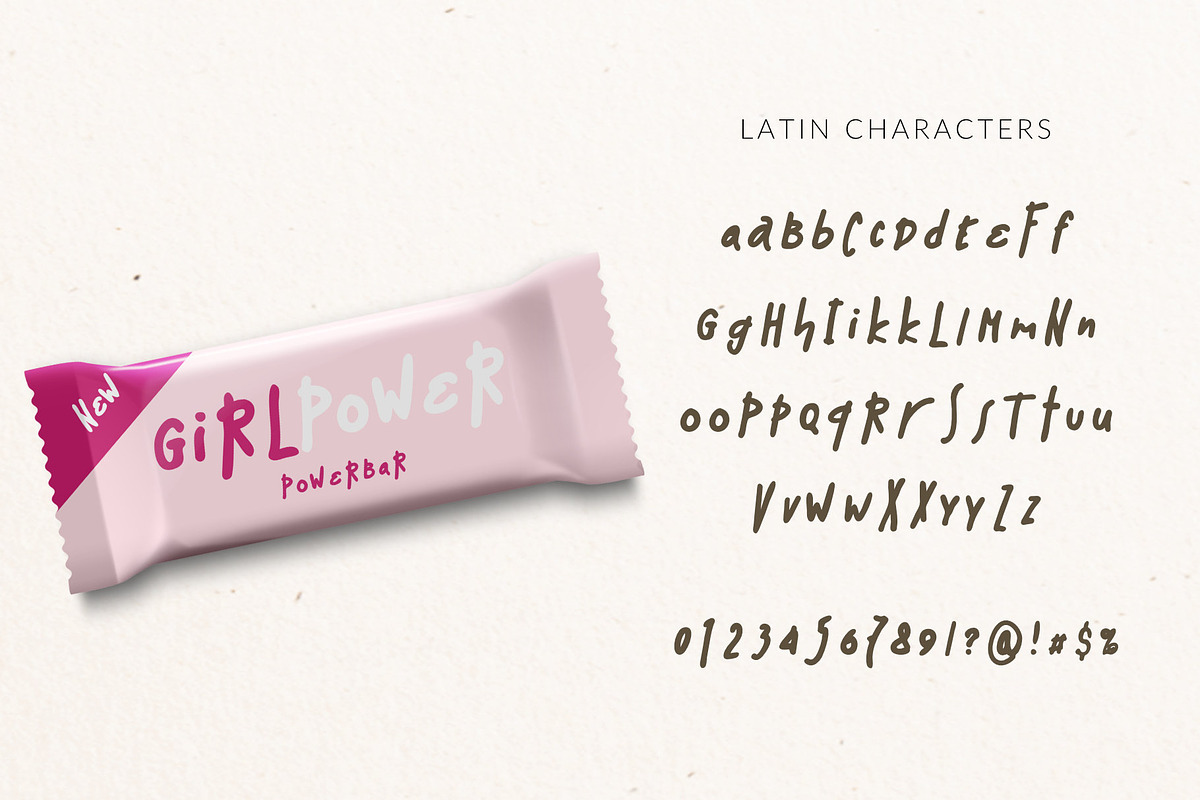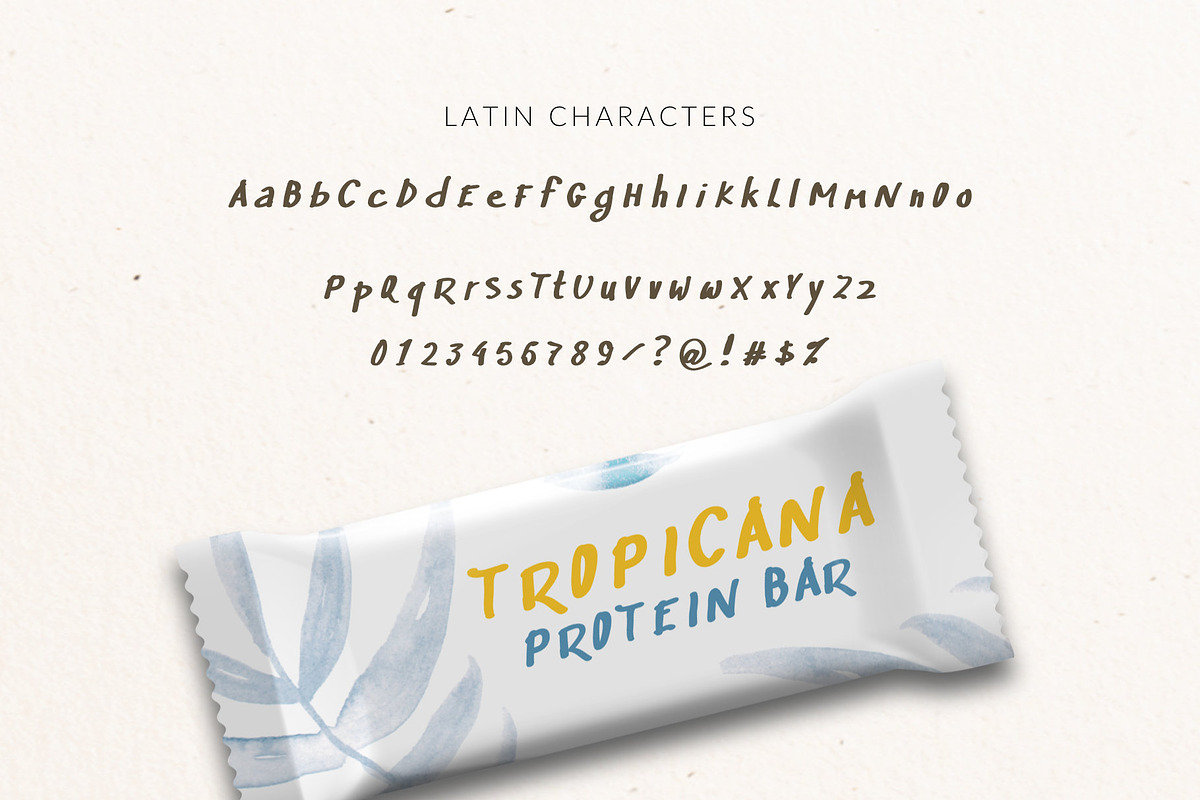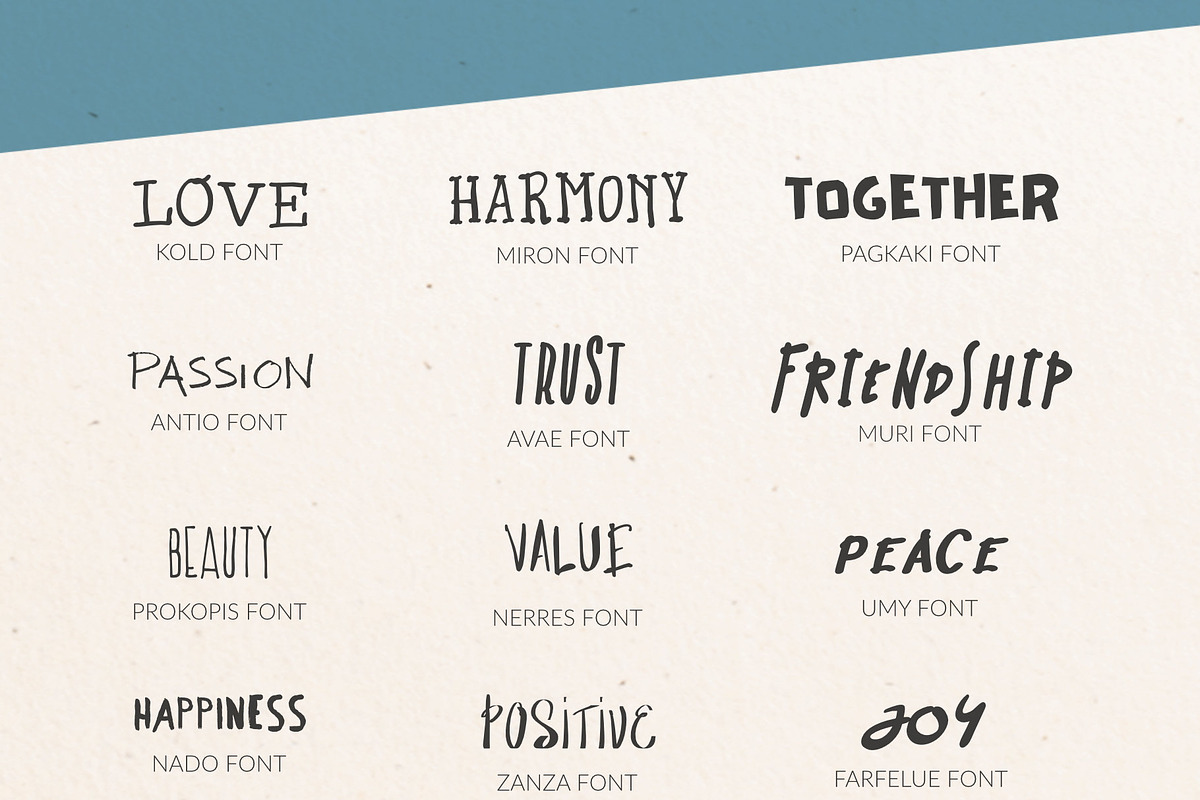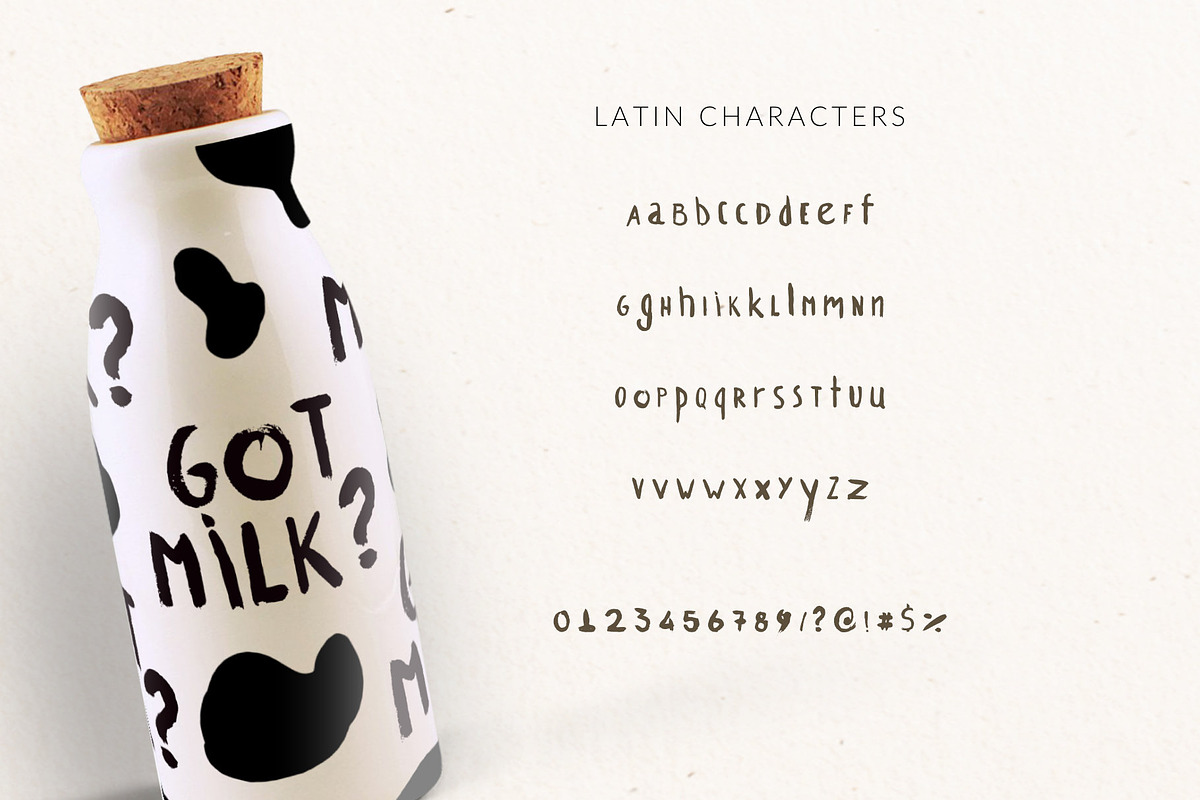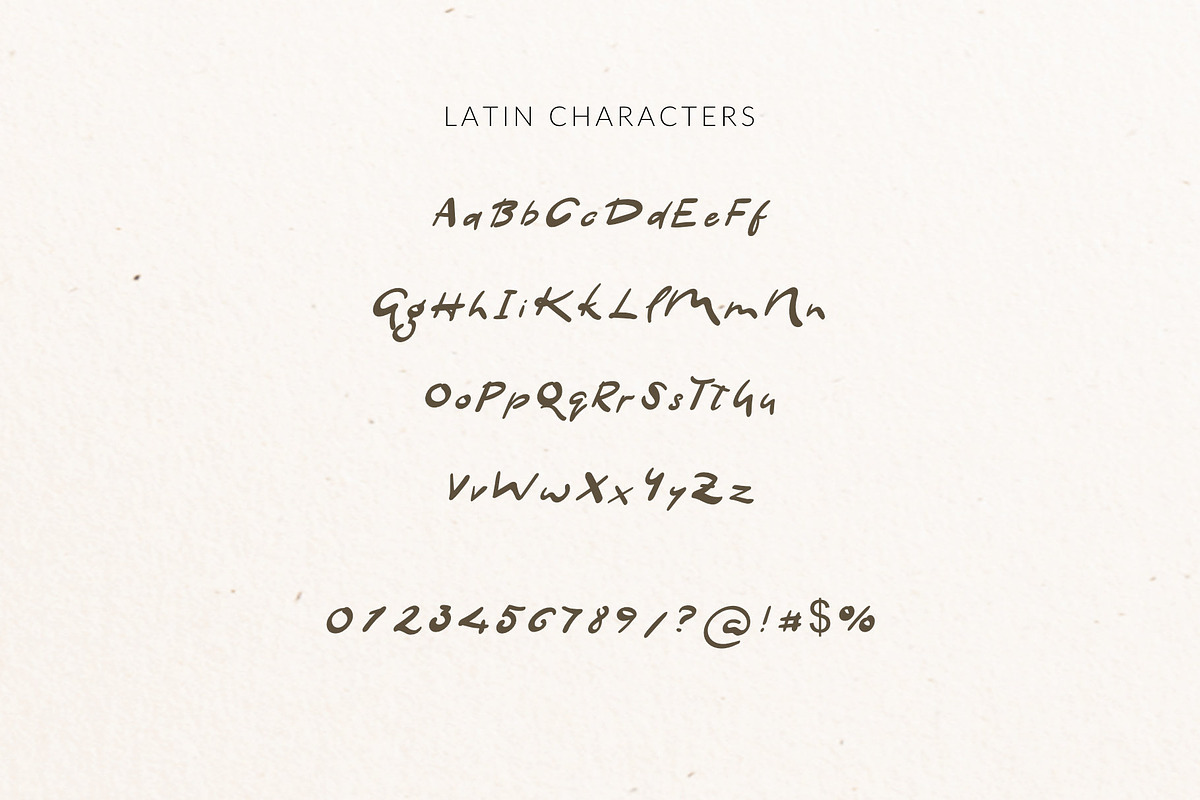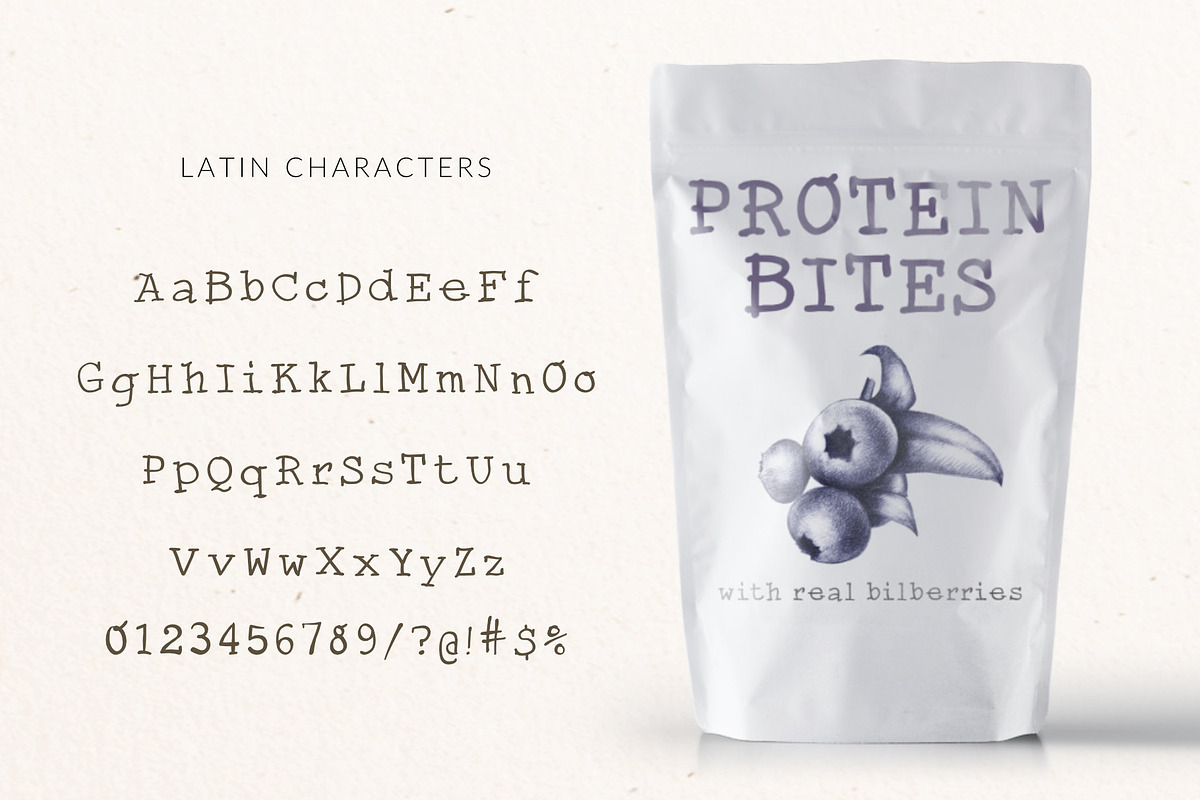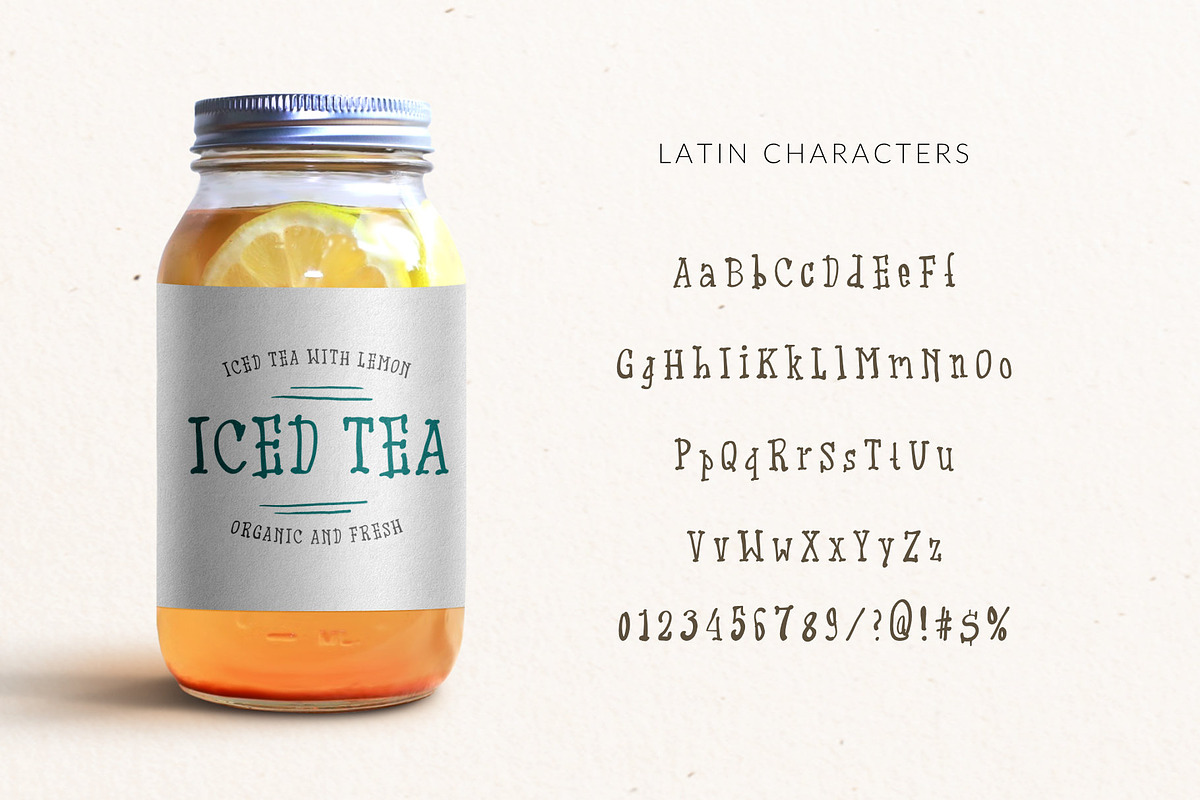
Handwritten Font Bundle Pack
Handwritten Font Bundle Pack by Greek fonts by nantia.co is a font selected for branding, posters, packaging, typography.
- It comes in 3 different weights:normal, semibold and bold.Kold Font is a multilingual font with extended Latin character set with diacritics
- 2.NERRES Font is a handwritten, only uppercase display font.This multilingual font includes both Greek and Latin character sets.
- 400 glyphs in Latin, Greek, punctuation marks and numbers.
- This multilingual font includes both Greek and Latin character sets.
- 380 glyphs in Latin, Greek, punctuation marks and numbers.
- 4.ZANZA Font is a handwritten, only uppercase display font.
Handwritten Font Bundle Pack by Greek fonts by nantia.co fits naturally into Branding, posters, packaging, typography.